Type Trends: 2023 Q1 Ryan Crouchman
From Simple Sans to Psychedelic Futurism
Variable fonts have graduated from a trend, to a full-on typographic staple. Scripts with a twist, American retro and a new wave of fonts that reject traditionalism are also part of what’s happening in type.
To get a handle on the pulse of typographic trends, we reached out to Ryan Crouchman, Partner, Vice-President, and Executive Creative Director at LG2 – Canada’s largest independent creative agency.
Ryan was also a judge at Communication Arts magazine’s 13th annual Typography Competition. This is someone who knows type.
Consistent Trends & Something New
The first question we asked Ryan was: as a judge in the Communication Arts Typography Competition, did he see any typographic design trends that MyFonts customers should be aware of – or emerging typographic clichés they should avoid?
He replied that there were some definite trends that consistently showed up throughout the competition. “The usual suspects such as Swiss revivals, experimental scripts and nods to old-timey Americana,” Ryan explained, “all of which can be absolutely lovely when well crafted.” He also singled out something new. “One direction I’ve seen a lot of recently is ‘psychedelic futurism.’ It’s a style that embraces the organic spirit of art nouveau, mixed with the fluid experimentation of 1970s hippie culture. Lots of undulating, wavy letterforms, often manipulated or drawn by hand, used in very expressive ways.”
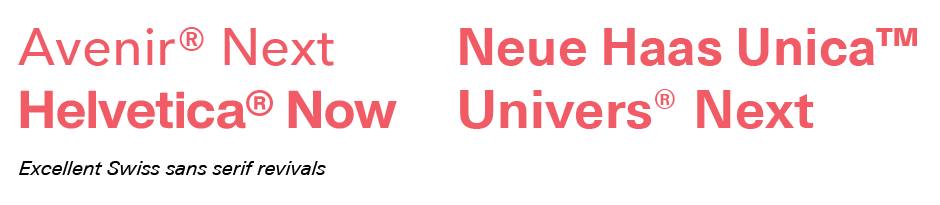
Avenir® Next, Helvetica® Now, Neue Haas Unica™, and Univers® Next all qualify as Swiss revivals.
If you’re looking for experimental scripts, MyFonts typefaces like A Morris Line, Soda Script™, and Bechamel™ might fit the bill. Although most successful experimental scripts are examples of hand lettering.
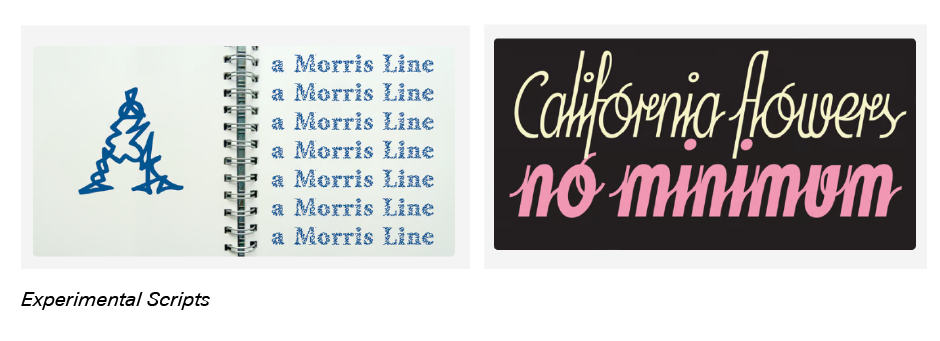
Brughler, Birthmont, and Dustland are distinct nods to old-timey Americana. While, Blowing Vesicle, Visualism, and HWT Arabesque™ are new designs that clearly pay homage to the 1970s hippie culture.
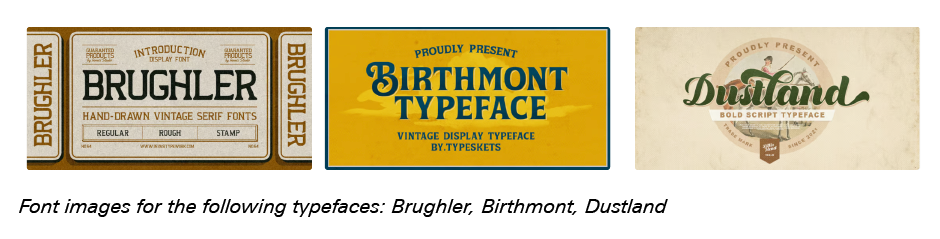
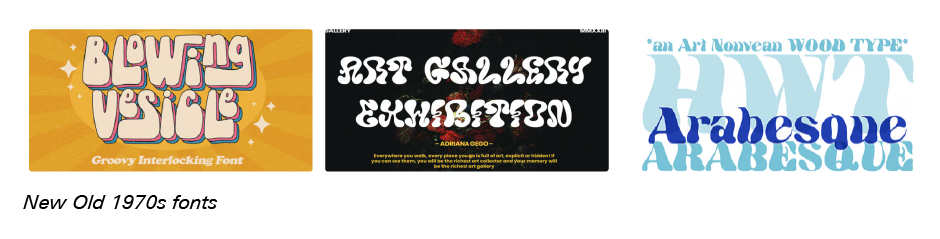
Simple, But Powerful Rebrand
Ryan was quick to add that, sometimes, a very simple, traditional typeface is the correct choice. “We recently rebranded KN Crowder,” he explained. “It’s an established family-run business that has been designing and manufacturing high-end door hardware for over 70 years. The updated brand needed to appeal directly to interior designers and architects – and reflect the clean, timeless and well-crafted nature of their products.
“To capture this, we selected AG Book® (a Berthold design available from MyFonts) as the primary typeface. The streamlined geometry of this particular typeface works well at small sizes, to brand their products. It also offers, incredible impact when printed large on their packaging, making KN Crowder’s products highly visible on factory floors and at construction sites.”
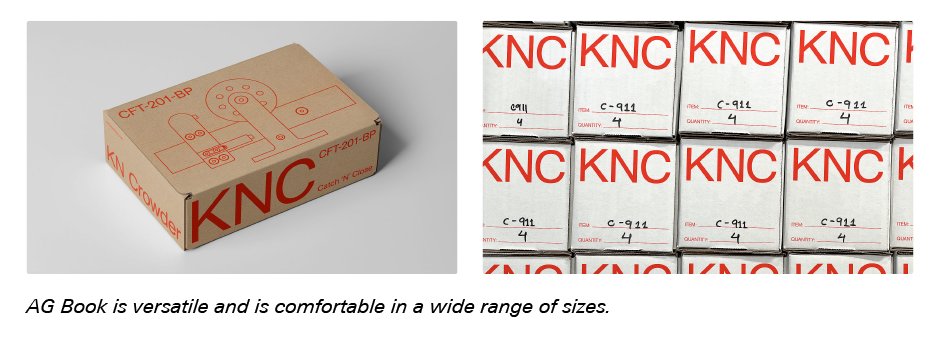
If you’re considering clean, timeless typeface family large enough to support the needs of virtually any branding project, you might also want to consider typeface designs like Classic Grotesque™, an early 20th century design, reimagined for current digital imaging, or Trade Gothic® Next, a mid-century sans redrawn for today’s branding needs.
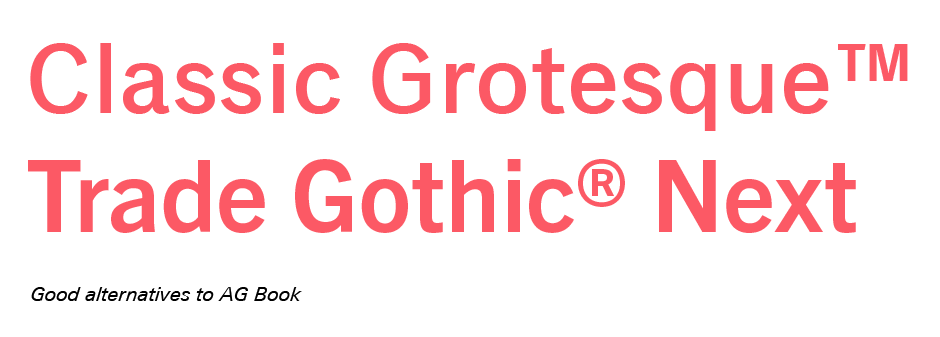
We also asked Ryan what drives his personal choices for fonts and typographic design. While he told us that he sees each project as an opportunity to explore a new typographic approach, Ryan also has three, important factors that drive his methodology. “The choice of type depends on,” he said, “brand personality, communication needs and audience. As with all design disciplines, it’s about matching form with function in a well-crafted and interesting way. Sometimes a project requires a simple, hard-working typeface and not much more. Other times, something more expressive is needed to convey a unique point of view. It all comes down to what feels right and looks great.”
Variable Fonts Can Be The Perfect Choice
Ryan told us that he and his team recently launched an update to LG2’s visual identity – and that this included the development of a unique variable typeface. “Variable fonts give us the ability to easily apply motion as part of our identity,” he explained. “Designed by Canadian typographer and designer, Julien Hébert, the typeface is called ‘Angus,’ in honor of the neighborhood where our new Montreal headquarters are located.” Angus is an understated, yet sophisticated, design that references Canada’s strong modernist design legacy – and does this from a single font file.
When asked what he thought was driving current type trends, Ryan’s answer was, “There are too many cultural forces at play to provide a comprehensive answer. However, it’s safe to say that technological advances have always influenced trends in a very direct way. One example is the steady increase of data-driven, generative and dynamic typographic expressions, especially within the arts and culture space. Variable fonts are here to stay